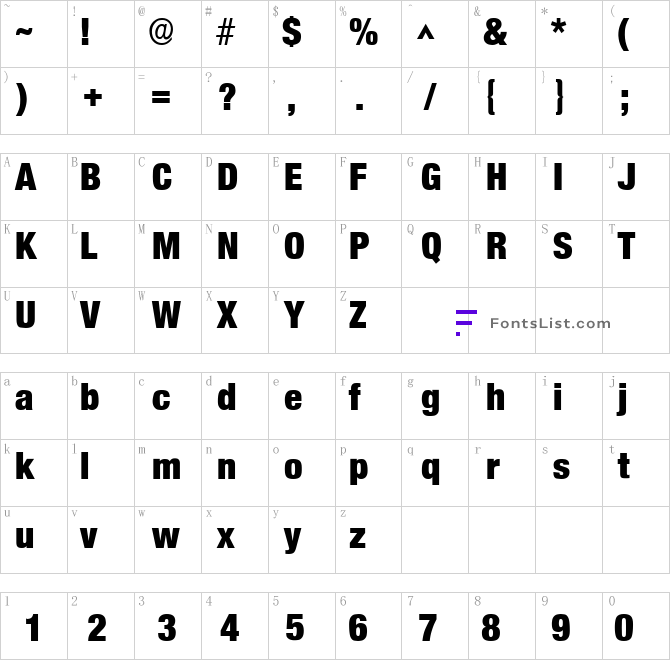
- Font Name:Basic Sans Heavy SF
Basic-Sans-Heavy-SF-Bold-copy-1-.ttf is a very beautiful artistic font, Basic-Sans-Heavy-SF-Bold-copy-1-.ttf is widely used in the design and printing of various books and pictures,Basic-Sans-Heavy-SF-Bold-copy-1-.ttf has a strong visual impact,Basic-Sans-Heavy-SF-Bold-copy-1-.ttf is a commonly used font in newspapers, magazines and books, and is used in posters, e-commerce Poster design, store design, logo design, font design and other fields.Basic-Sans-Heavy-SF-Bold-copy-1-.